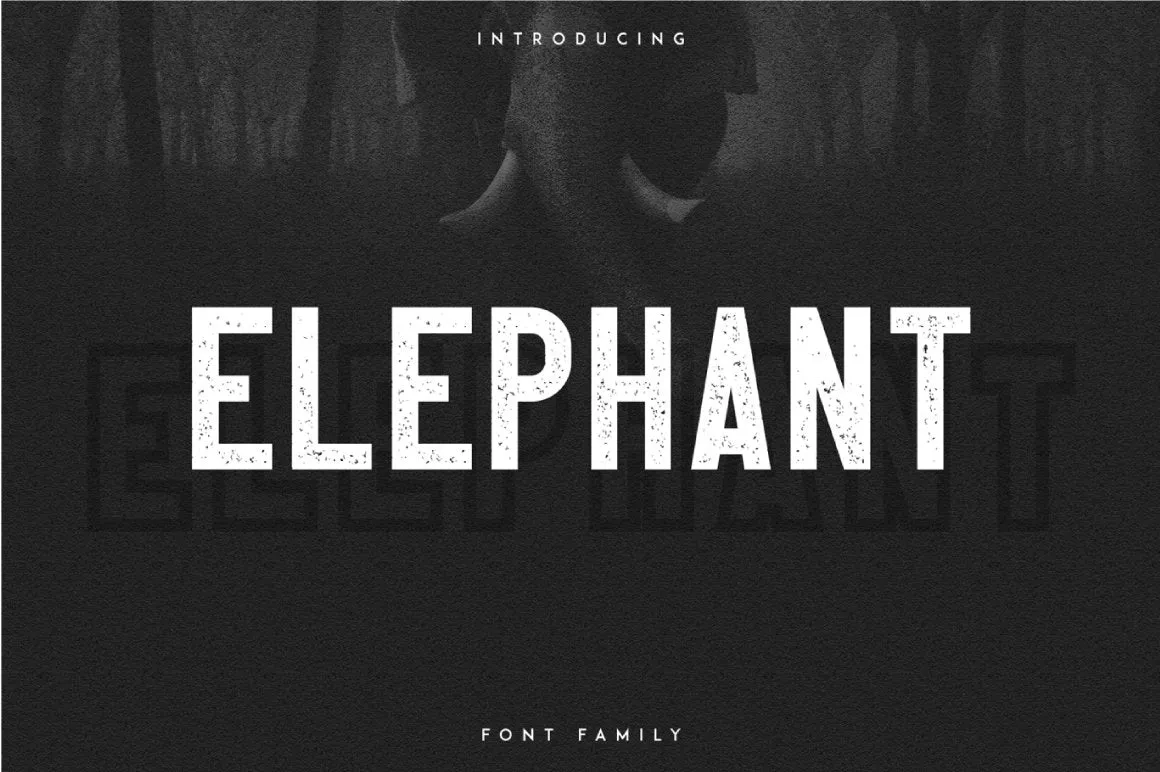
Today we're glad to feature this free elephant sans serif display font. Vladimir Fedotov has created this amazing and beautiful typeface. Easily amaze your audience with this beautiful font and make your graphic designs pop up from the crowd.